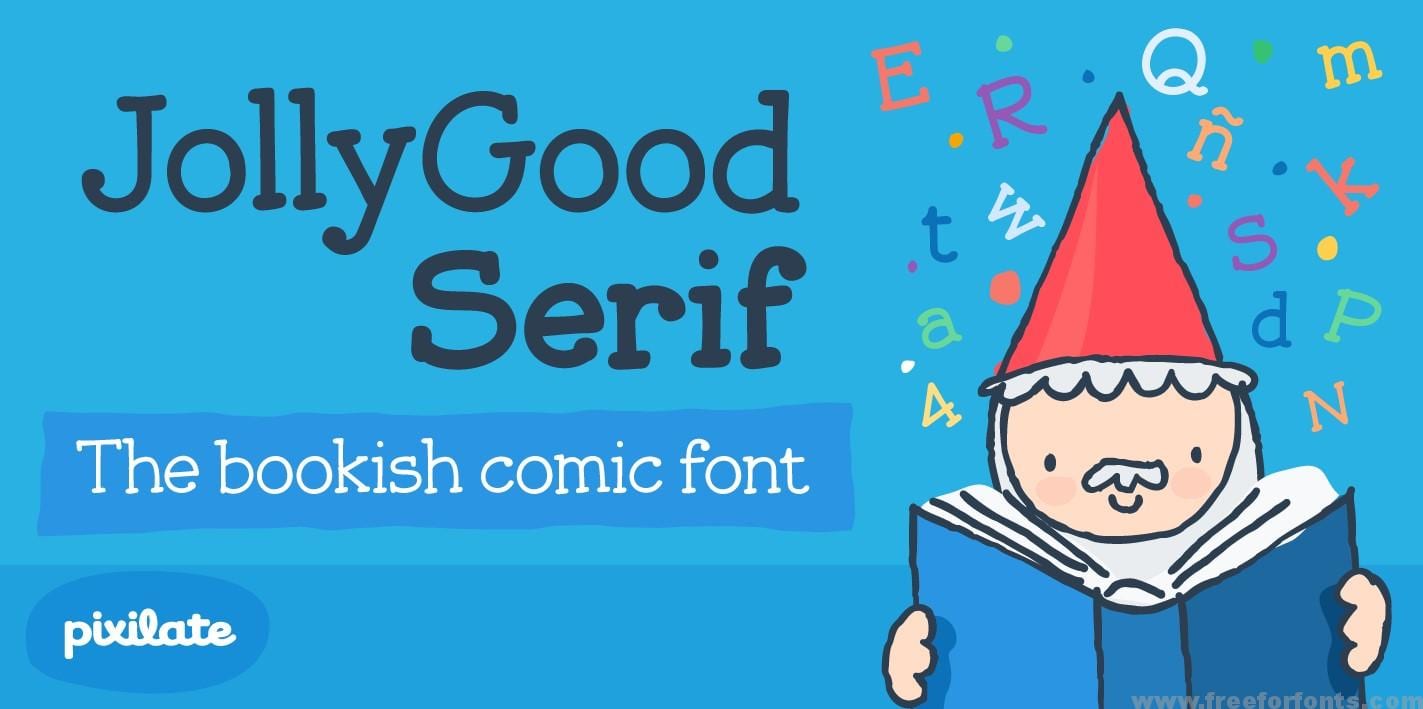
Creativefabrica Jollygood Serif Font Free Download Best Fonts. *all new bold & italic weights *extended latin, greek, and cyrillic characters added. It is a complete family with 4 weights in regular and italic (8 fonts in. It is a complete family with 4 weights in regular and italic (8 fonts in total). Please don't waste your time looking for a free download of jollygood serif. The license information stated by the members is usually correct but we cannot guarantee it. Moreover, you can embed it to your website with cufonfonts.com's fonts are uploaded by our members. Free for personal use, donate to use commercially. Paratype ltd grants you the right to use, copy, modify this font and distribute modified and unmodified copies of the font by any means, including placing on web servers for free downloading, embedding in documents and web. This is a hand drawn serif/typewriter font that can work both for comics or as a display face. Is jollygood serif free to download? This is a hand drawn this is a hand drawn serif/typewriter font that can work both for comics or as a display face. In basic > sans serif. Jollygood serif is another member of the jollygood family. It has an amazing character set, with support for most latin languages, as well. It is very unlikely you'll be able to find it for free, you risk getting viruses on your computer, and even if you do find it please remember.
A curated gallery of smashing fonts for creative designers. Jollygood serif supports up to 85 different languages such as spanish, english, portuguese, german, french, turkish, italian, polish, kurdish (latin), romanian, dutch. Complete family of 8 fonts: This is a hand drawn serif/typewriter font that can work both this is a narrower comic font that allows you to fit a lot of text, while still being fun & legible. Check it for free with typograph. Jun 21, 2018 fonts 142 0. Moreover, you can embed it to your website with cufonfonts.com's fonts are uploaded by our members.
Jollygood serif is another member of the jollygood family.
This is a hand drawn serif/typewriter font that can work both this is a narrower comic font that allows you to fit a lot of text, while still being fun & legible.
Jollygood Sans Unicase Regular 1 000 Ps 001 000 Hotconv 1 0 70 Makeotf Lib2 5 58329 Com Myfonts Easy Pixilate Jollygood Sans Unicase Regular Wfkit2 Version 4bka Fonts Free Download Onlinewebfonts Com. Is jollygood serif free to download? It is a complete family with 4 weights in regular and italic (8 fonts in. Moreover, you can embed it to your website with cufonfonts.com's fonts are uploaded by our members. Jollygood serif is another member of the jollygood family. This is a hand drawn this is a hand drawn serif/typewriter font that can work both for comics or as a display face. It is very unlikely you'll be able to find it for free, you risk getting viruses on your computer, and even if you do find it please remember. Paratype ltd grants you the right to use, copy, modify this font and distribute modified and unmodified copies of the font by any means, including placing on web servers for free downloading, embedding in documents and web. In basic > sans serif. Please don't waste your time looking for a free download of jollygood serif. This is a hand drawn serif/typewriter font that can work both for comics or as a display face. It has an amazing character set, with support for most latin languages, as well. The license information stated by the members is usually correct but we cannot guarantee it. *all new bold & italic weights *extended latin, greek, and cyrillic characters added. Free for personal use, donate to use commercially. It is a complete family with 4 weights in regular and italic (8 fonts in total).
It is a complete family with 4 weights in regular and italic (8 fonts in.
Similar Free Fonts And Alternative For Jollygood Serif Itali. Please don't waste your time looking for a free download of jollygood serif. *all new bold & italic weights *extended latin, greek, and cyrillic characters added. This is a hand drawn serif/typewriter font that can work both for comics or as a display face. The license information stated by the members is usually correct but we cannot guarantee it. Is jollygood serif free to download? This is a hand drawn this is a hand drawn serif/typewriter font that can work both for comics or as a display face. Jollygood serif is another member of the jollygood family. In basic > sans serif. It is a complete family with 4 weights in regular and italic (8 fonts in total). It is very unlikely you'll be able to find it for free, you risk getting viruses on your computer, and even if you do find it please remember. Moreover, you can embed it to your website with cufonfonts.com's fonts are uploaded by our members. Free for personal use, donate to use commercially. It is a complete family with 4 weights in regular and italic (8 fonts in. It has an amazing character set, with support for most latin languages, as well. Paratype ltd grants you the right to use, copy, modify this font and distribute modified and unmodified copies of the font by any means, including placing on web servers for free downloading, embedding in documents and web.
In basic > sans serif. A curated gallery of smashing fonts for creative designers. Licensed for personal and commercial use. Free for personal use, donate to use commercially. Jollygood serif free font family is an another member of the jollygood family. Check it for free with typograph. It is very unlikely you'll be able to find it for free, you risk getting viruses on your computer, and even if you do find it please remember. Resolve the captcha to access the links! $ free > personal use. This is a hand drawn serif/typewriter font that can work both for comics or as a display download from free file storage.